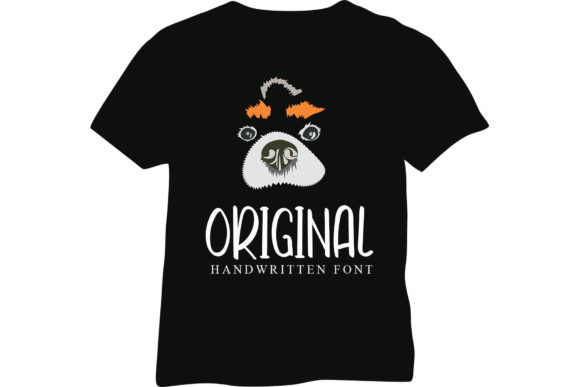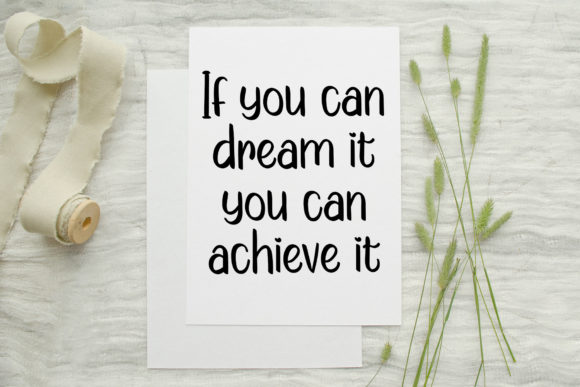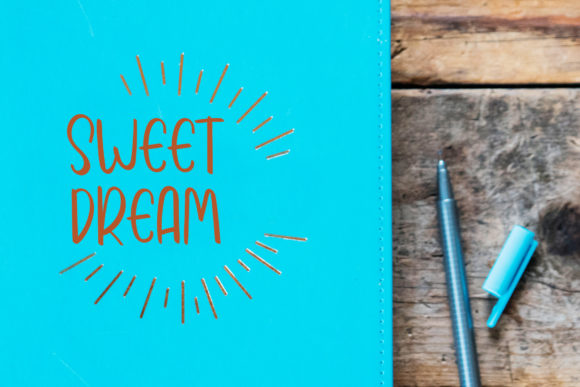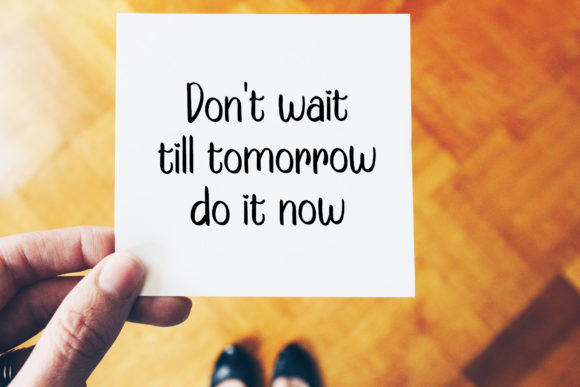
September Holiday Font
About September Holiday Font
September Holiday is a sweet and friendly handwritten font. Its natural and unique style makes it incredibly fitting to a large pool of designs. The only limit is your imagination!